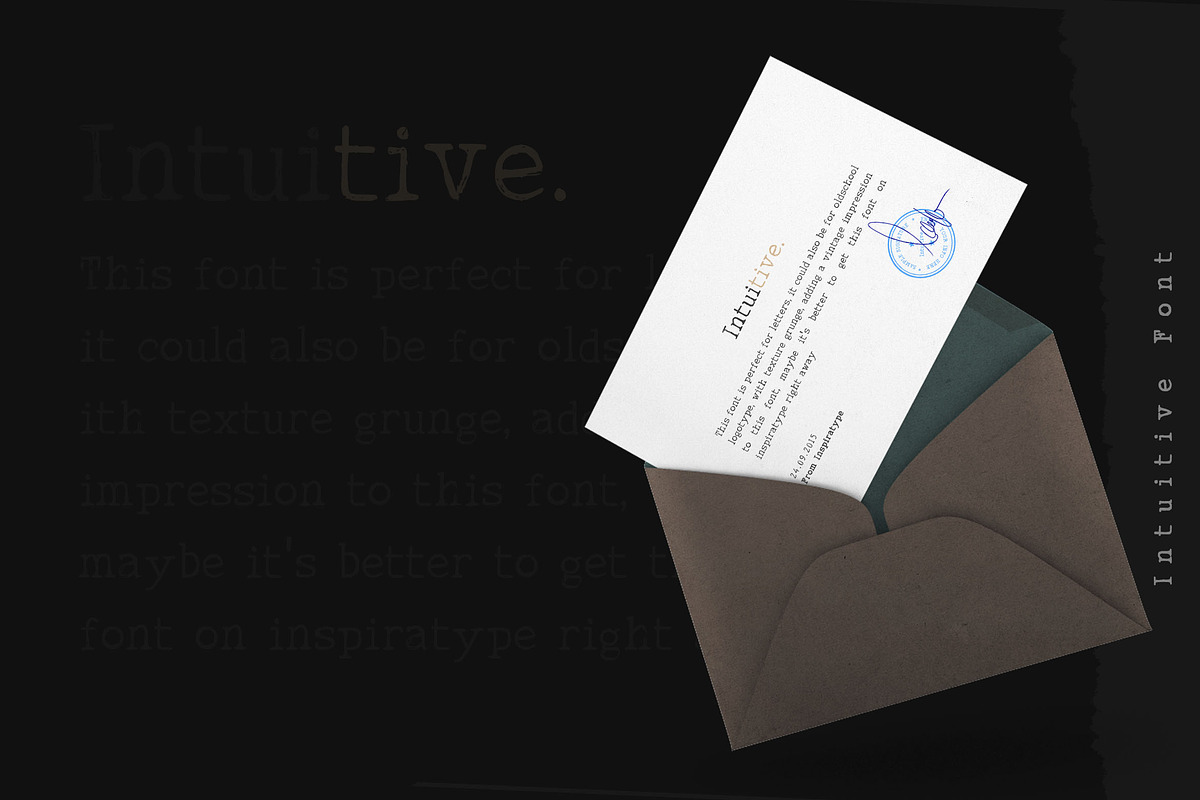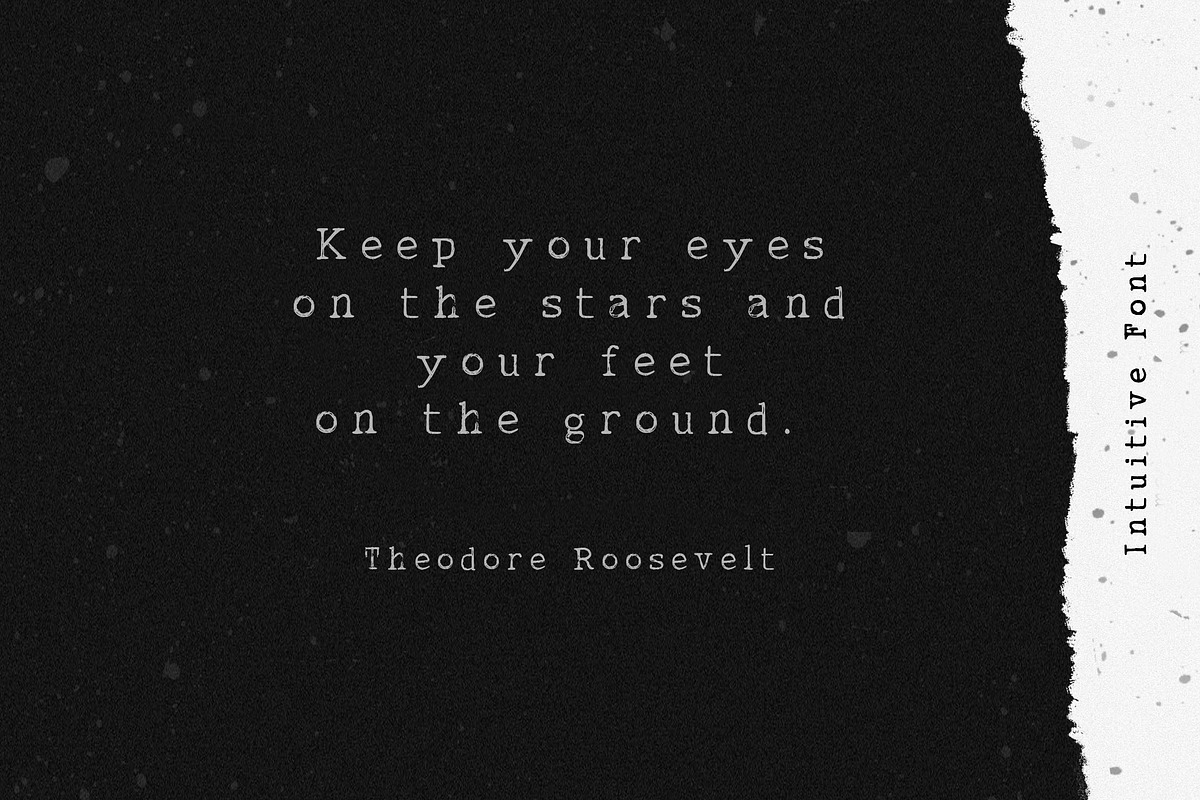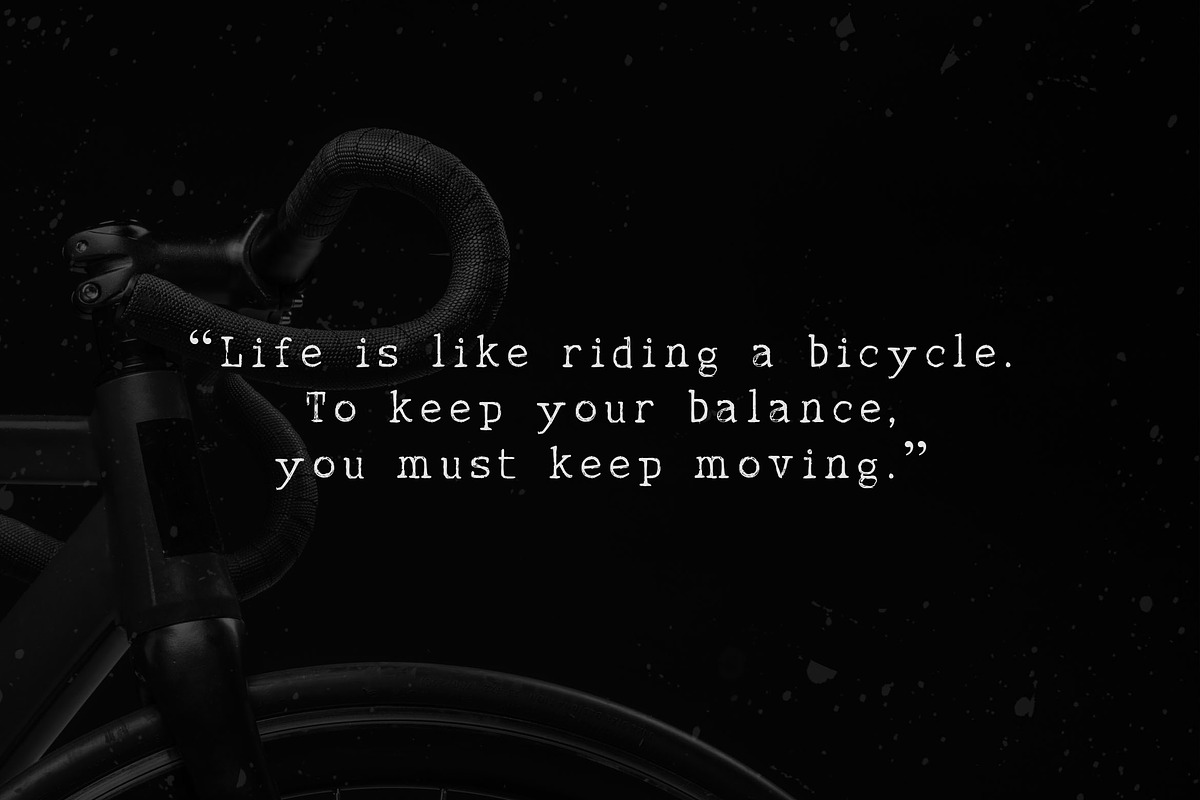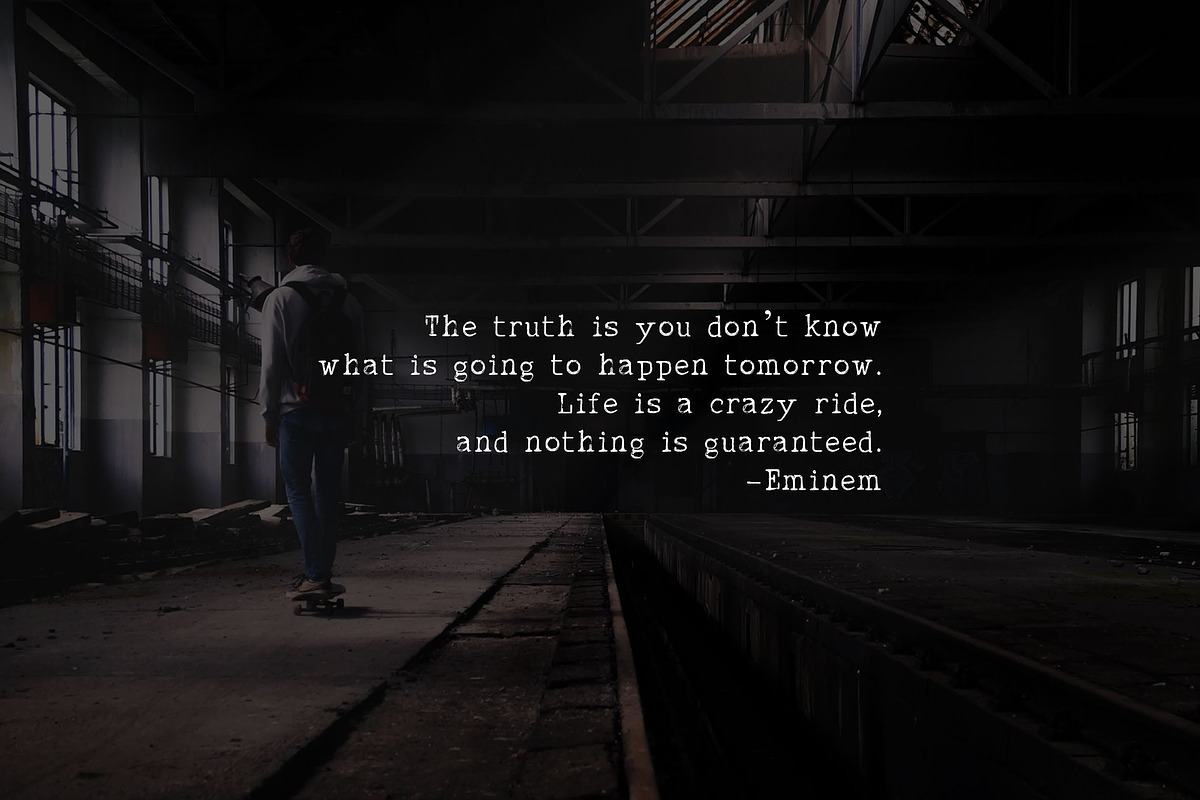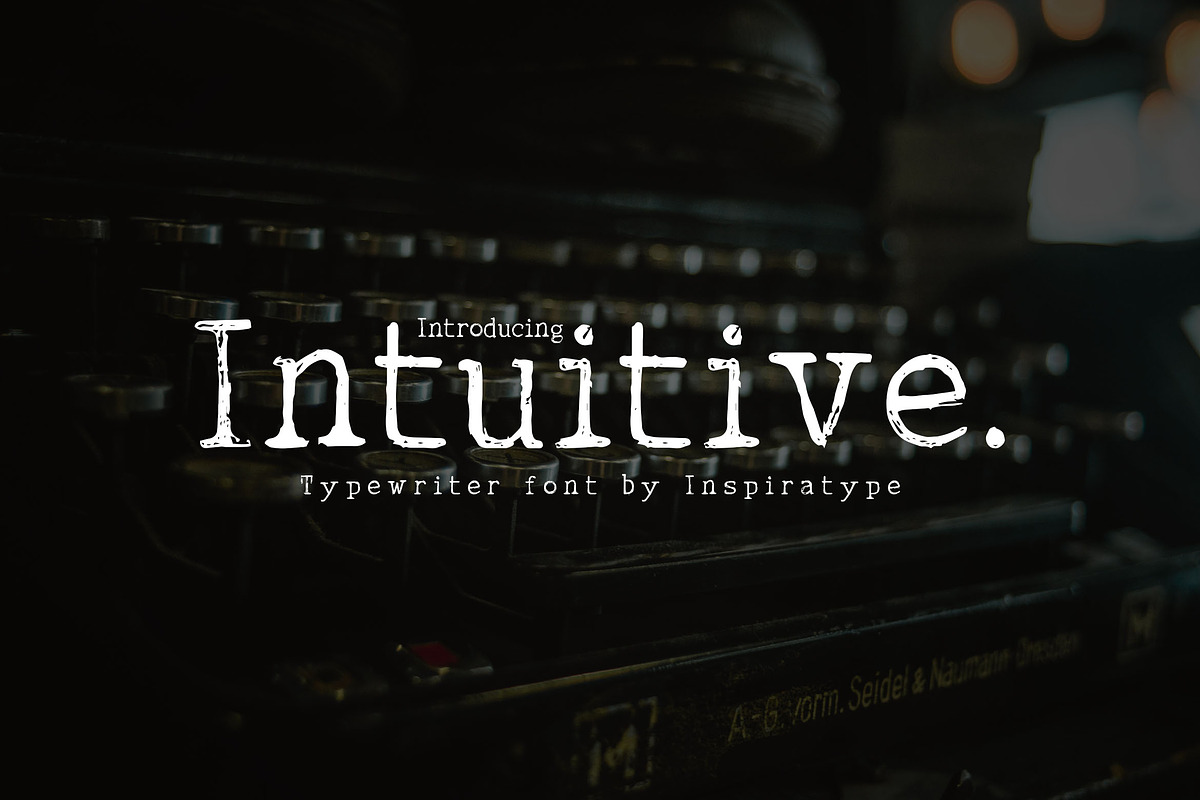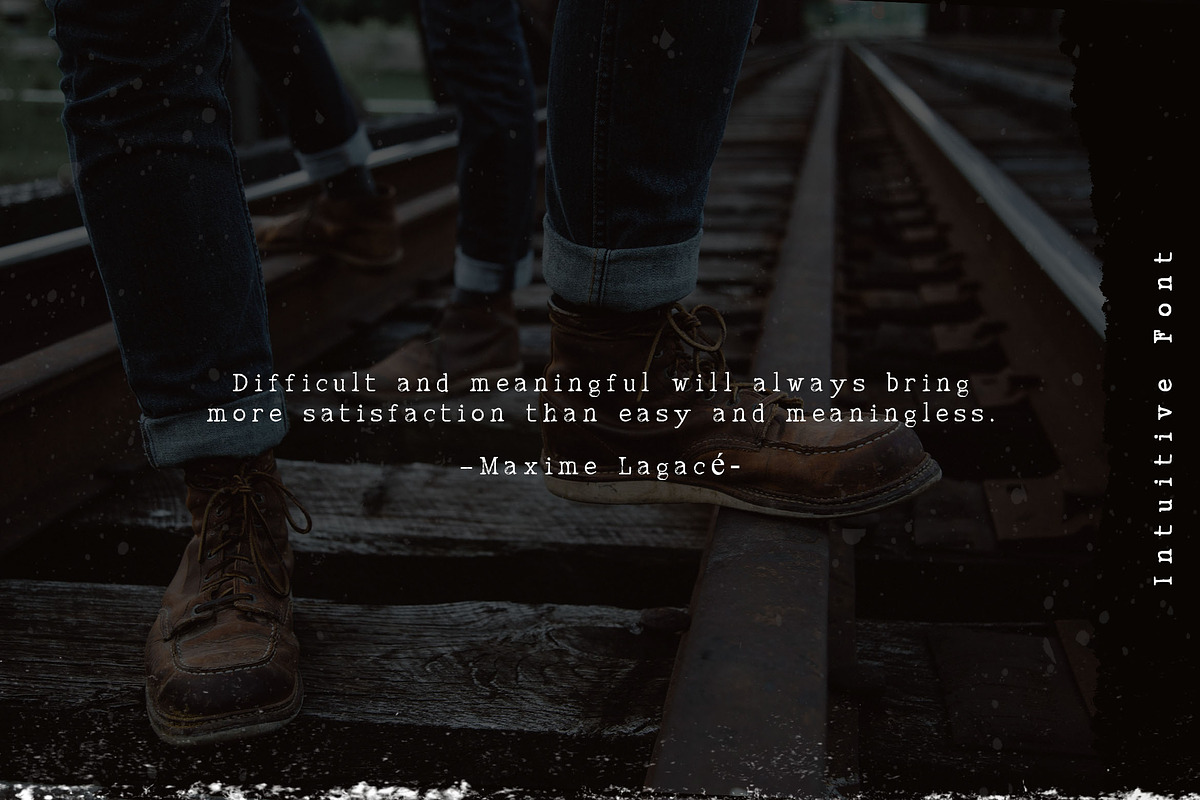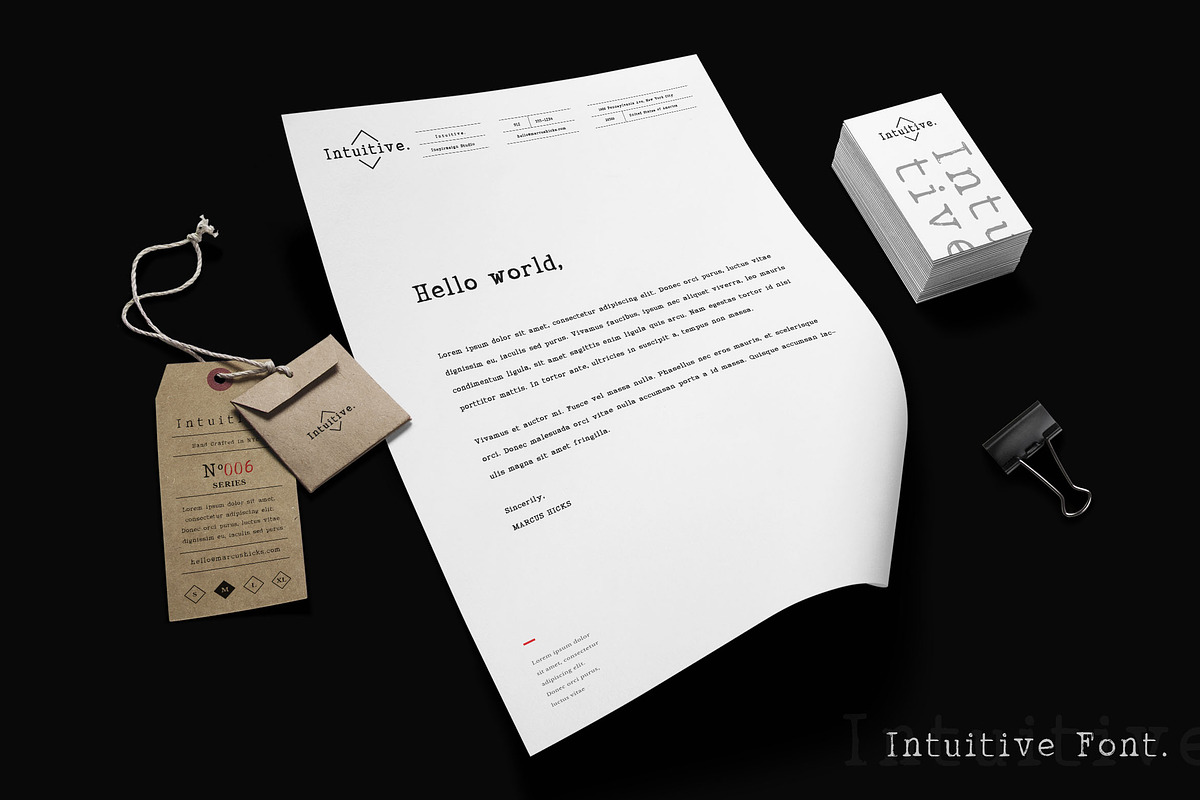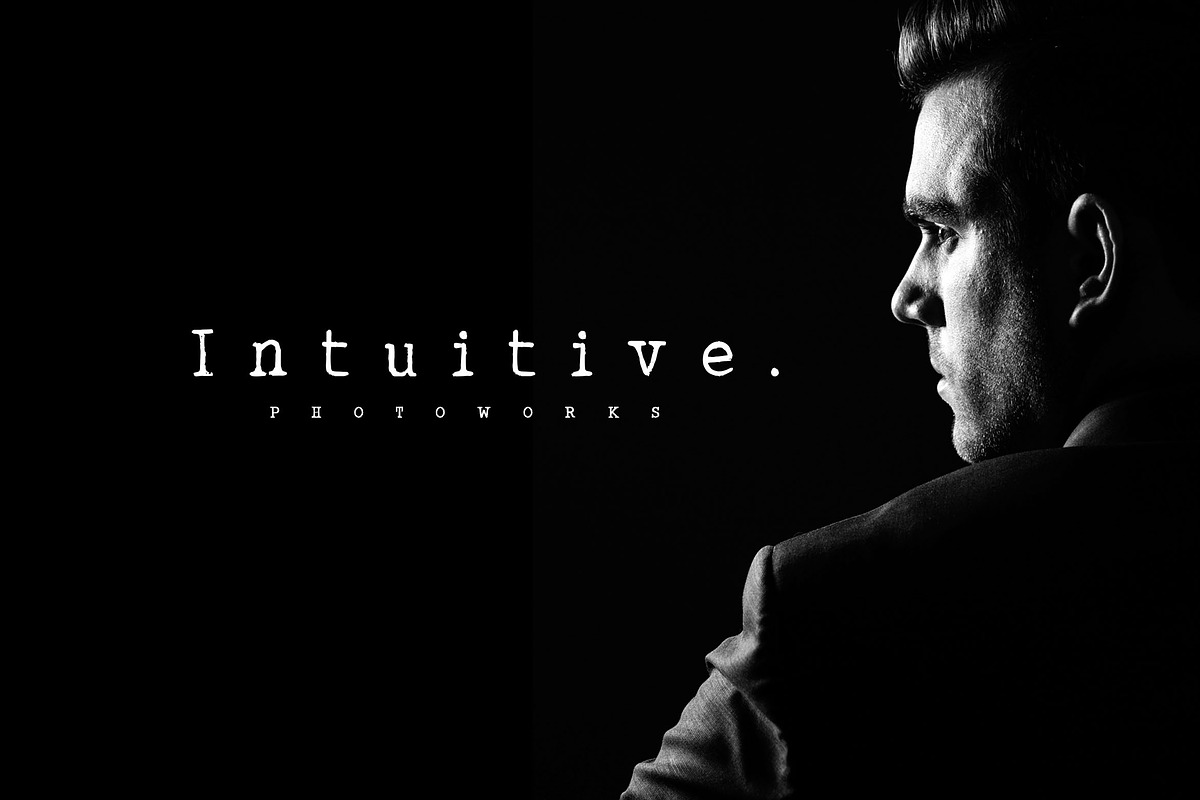
Intuitive - Typewriter Font
"Intuitive" is a font display that is made by hand, inspired by classic posters.
comes with uppercase, lowercase, numerals, punctuations and so many variations on each character include OpenType alternates, common ligatures and also additional swash to let you customize your designs. Perfect to use for Logotype, Letterhead, Poster, Apparel Design, Label and etc.